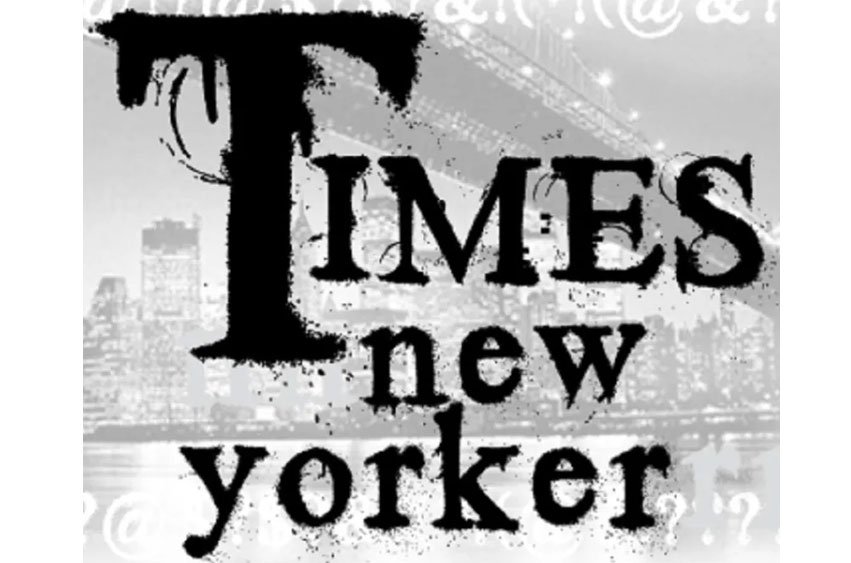
Times New Yorker Font The Current font is New Yorker Font which is a high quality Eroded font that has been designed by D. o. c. s and can be downloaded for free for personal or commercial use.
The free version of this keyboard has all the letters both in uppercase and lowercase and a few other characters as well.